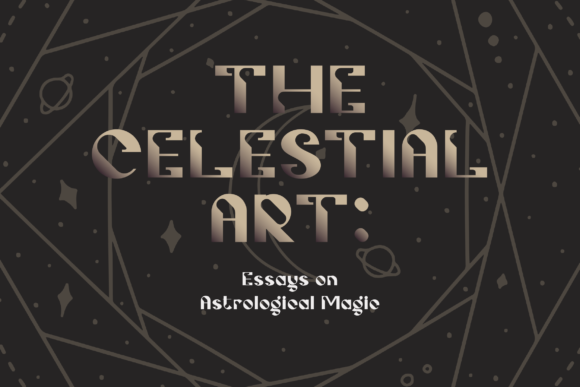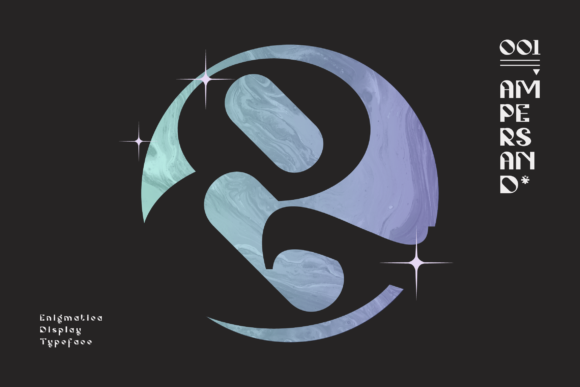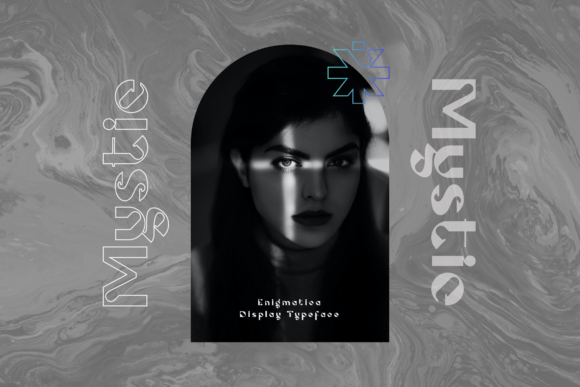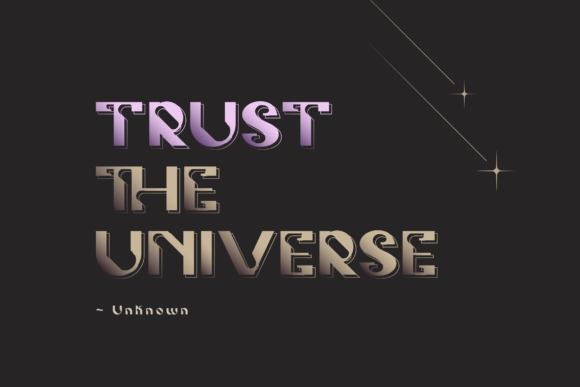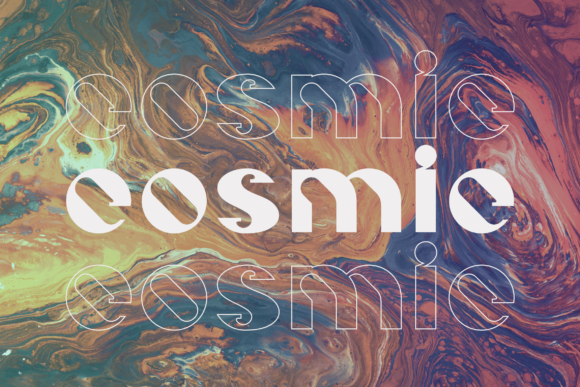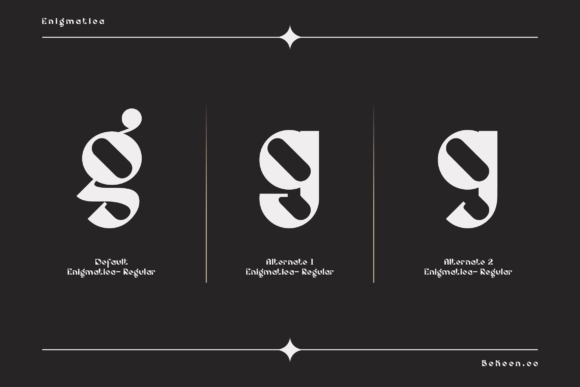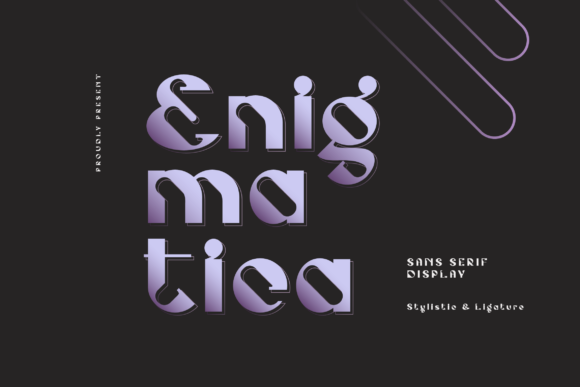
Introducing Enigmatica Font: The Ultimate Retro Display Font for Stunning Designs
Are you a designer or crafter looking for a unique and stylish font to elevate your visual projects? Look no further than Enigmatica Font, a cool and retro-looking display font that’s perfect for creating stunning posters, flyers, and prints. With its distinctive and eye-catching style, Enigmatica is sure to add a touch of sophistication and elegance to any design.
The Features of Enigmatica Font
Enigmatica Font is a versatile and highly customizable font that’s designed to meet the needs of modern designers and crafters. Here are some of its key features:
• Retro Style: Enigmatica Font boasts a unique retro aesthetic that’s reminiscent of classic posters and prints from the past. Its vintage look and feel are sure to add a touch of nostalgia and charm to any design.
• Display Font: As a display font, Enigmatica is optimized for use in headlines, titles, and other large-format text applications. Its bold and eye-catching style makes it perfect for grabbing attention and making a statement.
• Highly Customizable: Enigmatica Font comes with a range of customization options, allowing you to tailor it to your specific design needs. Whether you want to adjust the font size, color, or style, Enigmatica is easy to modify and adapt.
• Endless Possibilities: With Enigmatica Font, the creative possibilities are endless. Use it to create stunning posters, flyers, prints, and more, or experiment with different design applications and techniques to push the font to its limits.
Why Choose Enigmatica Font?
So why should you choose Enigmatica Font for your design projects? Here are just a few compelling reasons:
• Unique Style: Enigmatica Font offers a unique and distinctive style that’s sure to set your designs apart from the crowd. Its retro aesthetic and bold, eye-catching design make it perfect for creating visually striking posters, flyers, and prints.
• Ease of Use: Despite its high-end features and customization options, Enigmatica Font is incredibly easy to use. Whether you’re a seasoned designer or a crafty beginner, you’ll find it simple to integrate Enigmatica into your workflow and start creating stunning designs.
• Versatility: Enigmatica Font is an incredibly versatile font that can be used in a wide range of design applications. From posters and flyers to prints and digital graphics, Enigmatica is the perfect choice for any project that requires a bold, eye-catching font.
• Professional Results: With Enigmatica Font, you can achieve professional-quality results without spending hours agonizing over font choices and design details. Its high-end features and sleek, retro aesthetic make it perfect for creating designs that look like they were created by a pro.
Design Ideas with Enigmatica Font
Now that you’ve seen the features and benefits of Enigmatica Font, let’s explore some design ideas that showcase its capabilities. Here are a few inspiring examples to get you started:
• Retro Posters: Use Enigmatica Font to create stunning retro-style posters that evoke the nostalgia of a bygone era. Perfect for advertising vintage-themed events, products, or services.
• Flyers and Brochures: Add a touch of sophistication and elegance to your flyers and brochures with Enigmatica Font. Its bold, eye-catching style is sure to grab attention and make your marketing materials stand out.
• Prints and Art: Experiment with Enigmatica Font in your print designs, from artistic typography to bold, graphic prints. Its unique retro aesthetic and high-end features make it perfect for creating visually striking art pieces.
• Digital Graphics: Don’t limit Enigmatica Font to print designs! Use it to create stunning digital graphics, from social media headers to website titles and more.
Enigmatica Font is a powerful and versatile display font that’s perfect for designers and crafters looking to add a touch of retro style and sophistication to their visual projects. With its unique features, ease of use, and endless creative possibilities, Enigmatica is the ultimate choice for anyone looking to create stunning posters, flyers, prints, and more. So why wait? Download Enigmatica Font today and start exploring its limitless design potential!